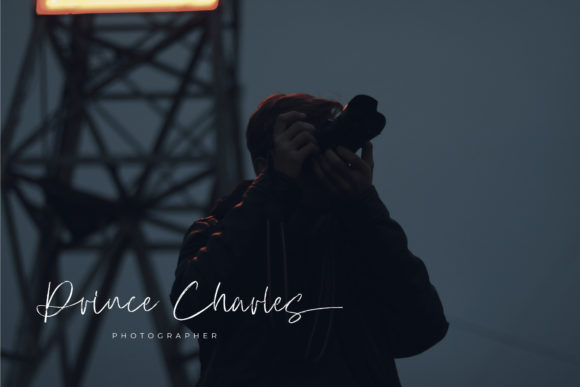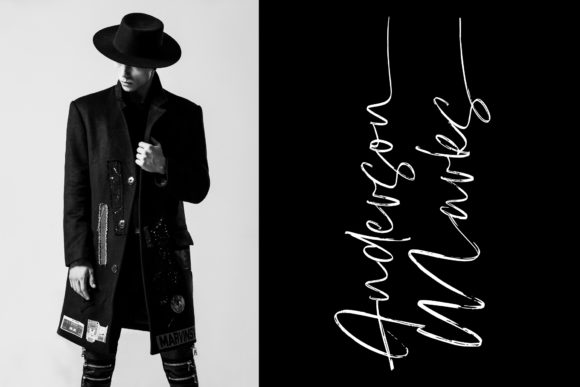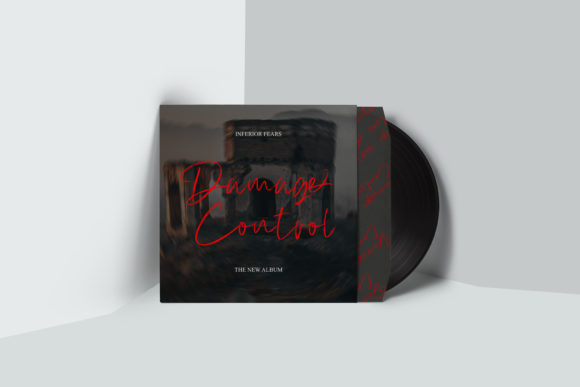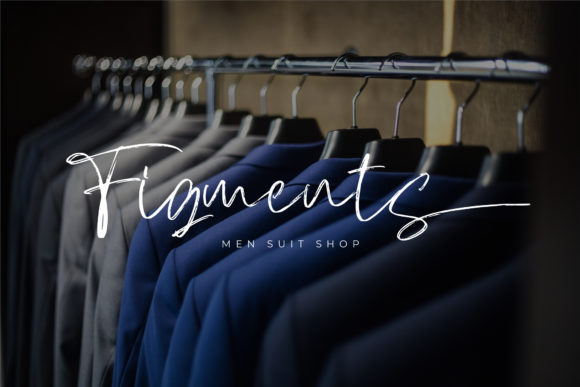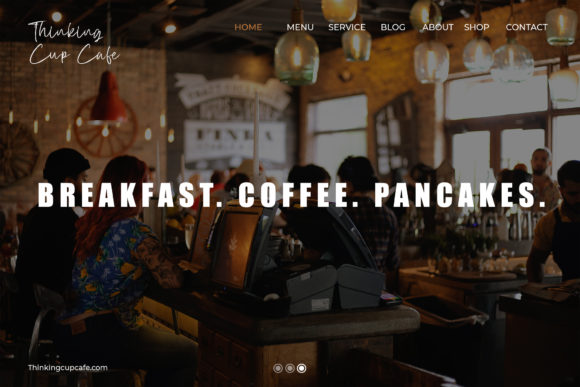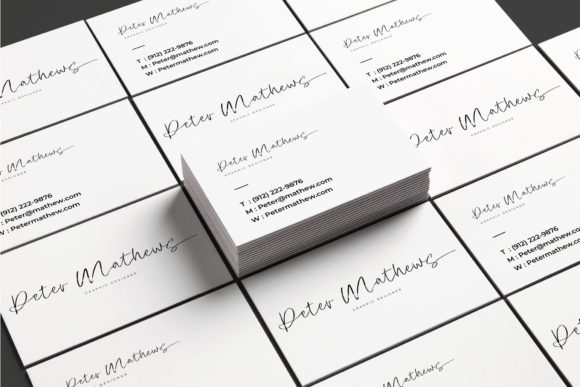
Discover the Elegance of Atkinson Font: Elevate Your Designs with a Touch of Sophistication
Are you on the hunt for a font that exudes elegance, sophistication, and a dash of modern flair? Look no further than the Atkinson Font, a stunning handwritten typeface that is sure to capture your heart. With its perfect blend of classic calligraphic influences and contemporary style, Atkinson is the ideal choice for designers and crafters seeking to elevate their projects to new heights.
The Story Behind Atkinson Font
Atkinson Font is a masterfully designed typeface that boasts a unique and exquisite aesthetic. Its creator has poured their heart and soul into crafting a font that not only pays homage to traditional calligraphy but also feels fresh and modern. The result is a font that is both timeless and trendy, making it an excellent addition to any design arsenal.
Key Features of Atkinson Font
- Handwritten Elegance: Atkinson Font is a beautiful handwritten typeface that adds a touch of warmth and personality to any design.
- Classy Calligraphic Influences: The font’s classic calligraphic roots give it a sophisticated and refined feel, perfect for high-end designs.
- Contemporary Twist: Atkinson’s modern flair ensures that it feels fresh and current, making it suitable for a wide range of design applications.
- Versatility: This font is incredibly versatile, and can be used for everything from branding and packaging to wedding invitations and digital marketing materials.
Why Choose Atkinson Font?
With so many fonts available, why should you choose Atkinson for your next project? Here are just a few compelling reasons:
- Unique and Memorable: Atkinson Font is a true standout, with a distinctive style that will help your designs stay ahead of the curve.
- Easy to Read: Despite its elegant and refined appearance, Atkinson is incredibly legible, making it perfect for body text and headlines.
- Customizable: The font comes in a range of styles and weights, allowing you to tailor it to your specific design needs.
- Support for Multiple Languages: Atkinson Font supports a wide range of languages, making it an excellent choice for global brands and multilingual designs.
Using Atkinson Font in Your Designs
So, how can you incorporate Atkinson Font into your designs? Here are a few ideas to get you started:
- Branding and Identity: Use Atkinson Font to create stunning logos, business cards, and letterheads that exude elegance and sophistication.
- Wedding and Event Design: Add a touch of romance and whimsy to your wedding invitations, menus, and other event materials with Atkinson Font.
- Packaging and Product Design: Elevate your product packaging with Atkinson Font, perfect for luxury brands and high-end products.
- Digital Marketing: Use Atkinson Font in your digital marketing campaigns to add a touch of personality and style to your social media graphics, email newsletters, and website headers.
In conclusion, Atkinson Font is a true gem that is sure to become a favorite among designers and crafters. Its exquisite handwritten style, combined with its classy calligraphic influences and modern flair, make it the perfect choice for anyone seeking to elevate their designs. Whether you’re working on a branding project, wedding invitation, or digital marketing campaign, Atkinson Font is sure to bring a touch of sophistication and elegance to your work.